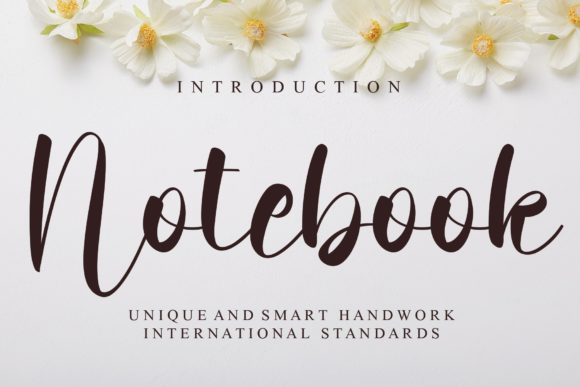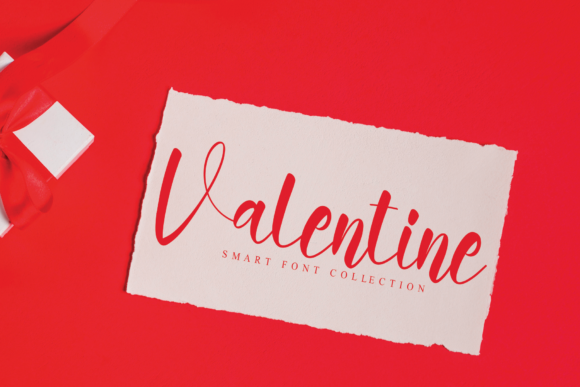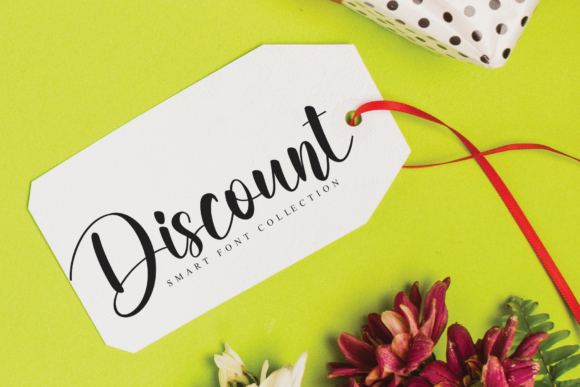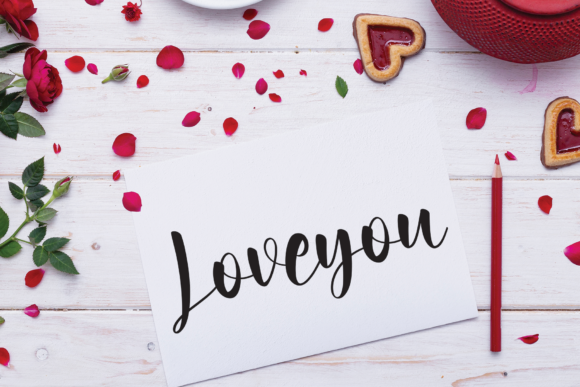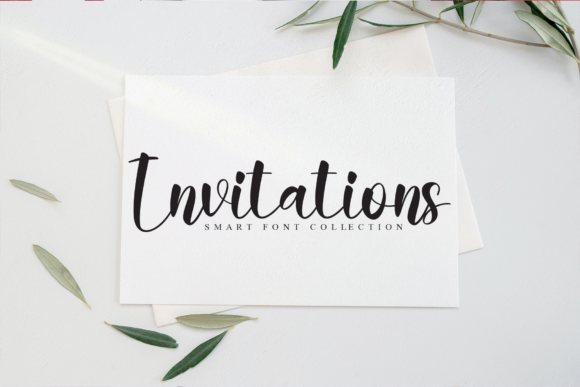
HomeScript FontsNotebook Font Script Fonts Notebook Font FacebookXPinterestWhatsApp 1 of 5 Notebook Font Poster 2... Notebook Font Poster 3... Notebook Font Poster 4... Notebook Font Poster 5... About Notebook Font Notebook is a sweet script font. Use it for any design projects that require a charming appearance! DOWNLOAD NOW People also explored Syeva Kensley Font Aceh Font Saratoga Slim Barbarosa Font Rastico Font Sun Flower Font Brandon Smith Font Betrycia Font Thransty Font 286 0 TagsNotebook Font Previous articleMothers Beloved FontNext articleParadise Font LEAVE A REPLY Cancel reply Comment: Please enter your comment! Name:* Please enter your name here Email:* You have entered an incorrect email address! Please enter your email address here Website: Save my name, email, and website in this browser for the next time I comment. Personal Use Free Built Tilting Personal Use Free Read more about this font Ciggs Personal Use Free Read more about this font Gardening Personal Use Free Read more about this font Indonesia Dermawan Personal Use Free Read more about this font BLOG Top 7 Google Fonts Alternatives for Faster and Privacy-Friendly Web Design (2025) Top 7 Google Fonts Alternatives for Faster and Privacy-Friendly Web Design (2025) When it comes to web typography, Google Fonts has long been the go-to... How to Install and Use Fonts on Windows, macOS, and Web Projects Exploring Font Trends Using Fonts in Digital Marketing: Tips to Strengthen Your Brand Identity